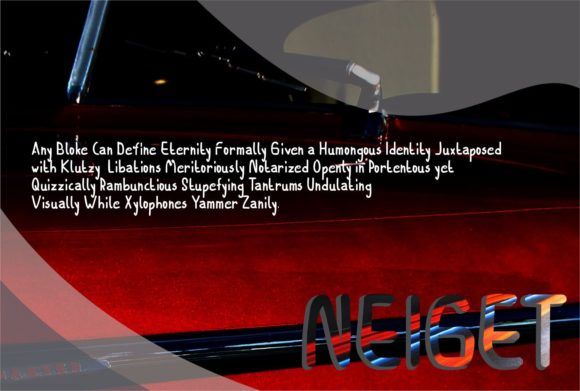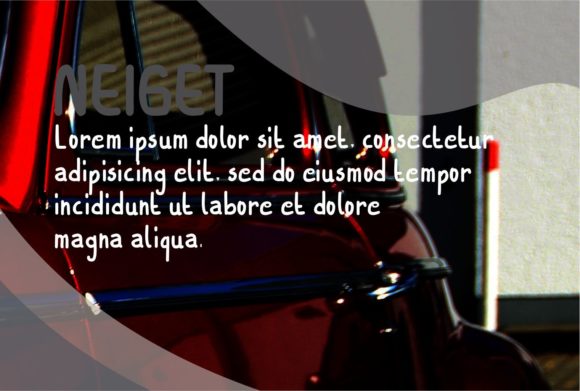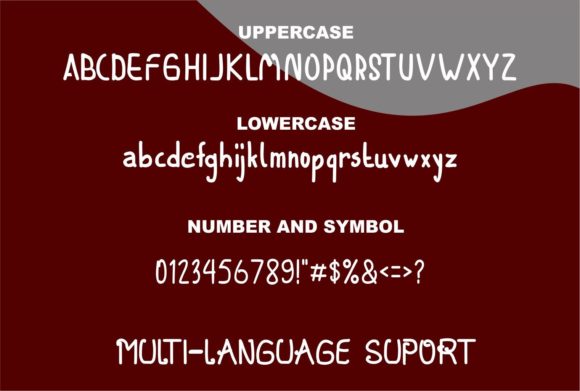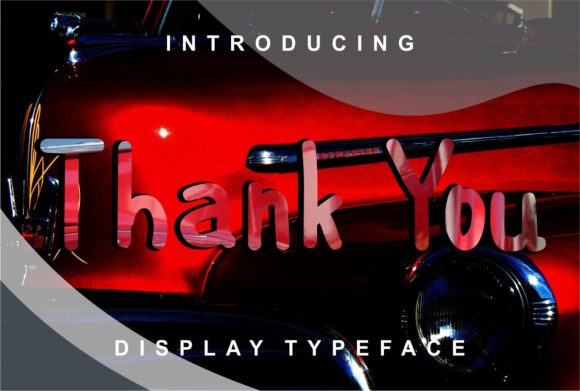
Introduction to Neiget Font
Have you ever been in the midst of a creative project, pouring your heart and soul into a design, only to be stuck on finding the perfect font to bring it all together? For designers, this is a common dilemma, and it can be frustrating when the right font seems elusive. But what if I told you that there’s a solution that can elevate your designs to the next level?
Enter the Neiget Font, a clean and adaptable display font that’s designed to make a statement. With its high-quality design and transparent background, this font is perfect for posters, flyers, and prints. Whether you’re working on a creative project or simply looking for a design resource, the Neiget Font is an invaluable addition to your toolkit.
Key Features of Neiget Font
- High-quality font designed for creative projects and digital designs.
- Comes with a transparent background, allowing for seamless integration into design resources.
- Supports various font sizes and resolutions, making it suitable for a wide range of applications.
- Designed with a modern and clean aesthetic, making it an ideal design resource for creative professionals.
- Perfect for use in graphic design, web design, and digital art projects, where a high-quality font is essential.
Honest Review: Neiget Font
As a designer, I’m always on the lookout for high-quality fonts to enhance my creative projects. Recently, I stumbled upon the Neiget Font, and I’m excited to share my thoughts on this design resource.
What works well about the Neiget Font is its versatility. It’s available for free download, making it an excellent choice for designers working on tight budgets. The font itself is modern, sleek, and perfect for digital applications. Its transparent background makes it easy to use on any background, ensuring seamless integration into your design.
- ✨ Modern and sleek design aesthetic
However, I did encounter some limitations. The font family is relatively small, and it may not be suitable for extensive use in large-scale designs. Additionally, the font’s unique style may not appeal to every designer’s taste.
Overall, I’m impressed with the Neiget Font’s design and usability. While it may have some limitations, it’s an excellent choice for designers looking for a high-quality, modern font for their creative projects.
Tips for Getting the Most Out of Neiget Font
For best results, use Neiget Font on a transparent background to create a clean and modern look. You can also experiment with different font sizes and colors to add visual interest to your design.
Neiget Font is perfect for a variety of creative projects, including logos, social media graphics, and presentations. You can also use it to create high-quality typography for your website or blog.